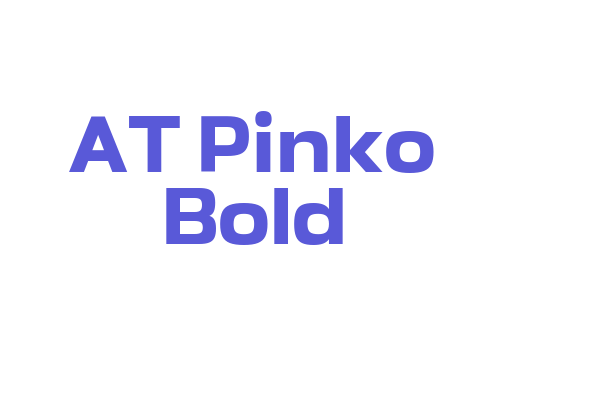
AT Pinko Bold is a bold sans serif font designed by Ardyana Putra. Part of the AT Pinko font family, this typeface is perfect for creating eye-catching designs that need a strong and modern look. Ideal for headlines, logos, and branding projects, AT Pinko Bold stands out with its sleek and bold style.
Font Name: AT Pinko Bold
Designer: Ardyana Putra
Font Family: AT Pinko